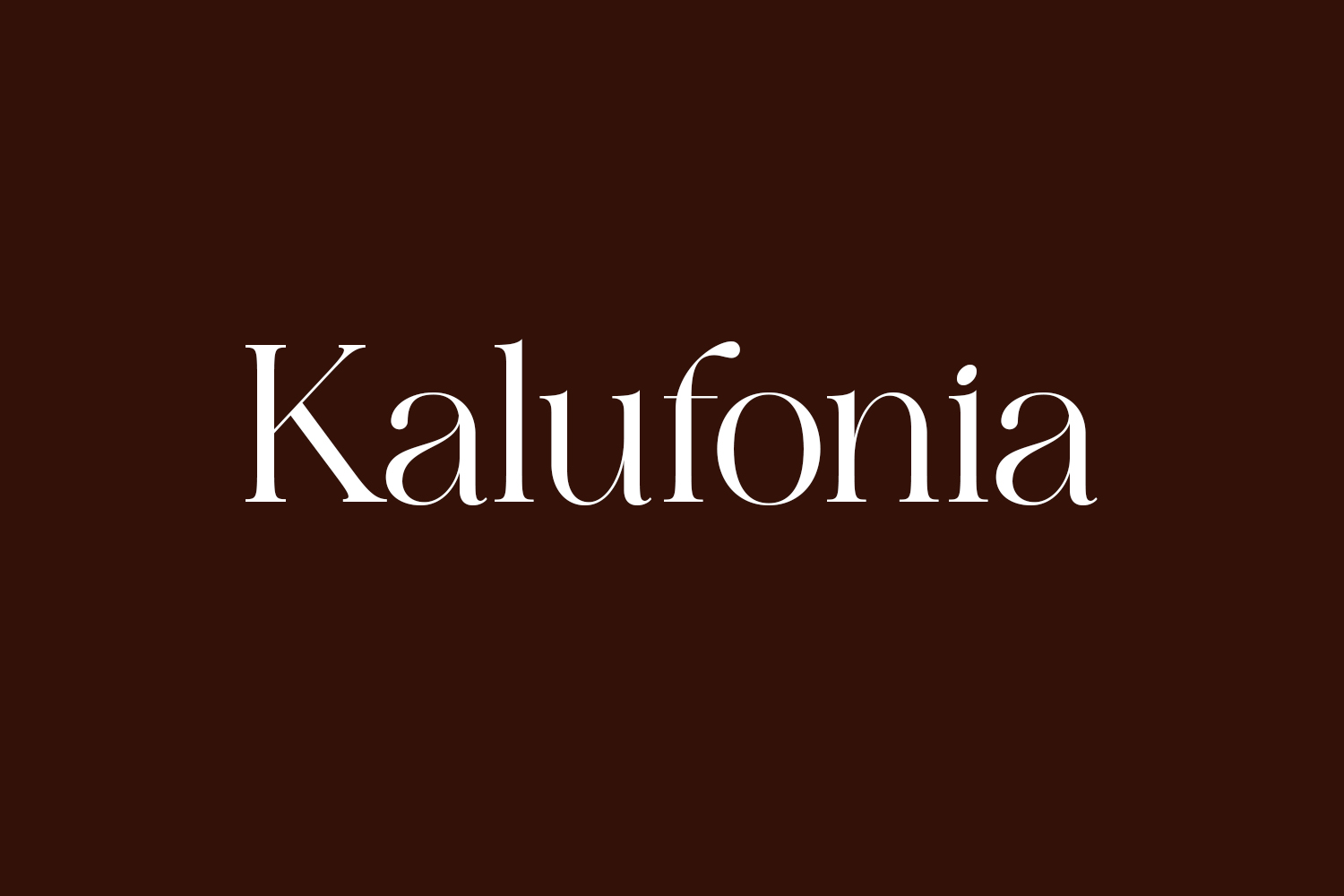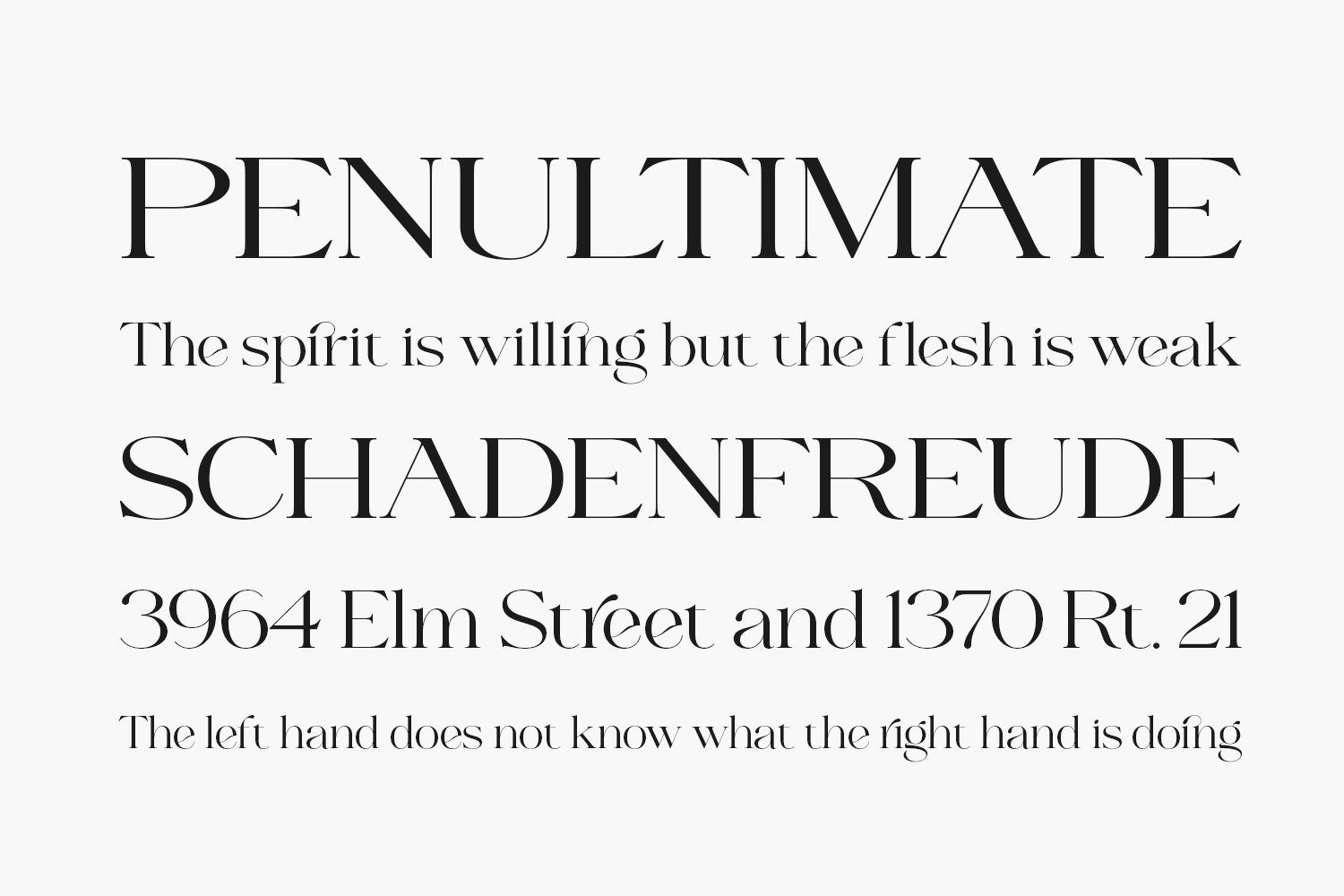
Kalufonia Free Font is a chic and contemporary serif font, perfect for elevating headings, logos, branding, magazines, product packaging, and invitations. With its crisp lines and seamless curves, Kalufonia adds a sophisticated flair to any project. Download the font for free if you need it for personal use or purchase the full version for commercial use.